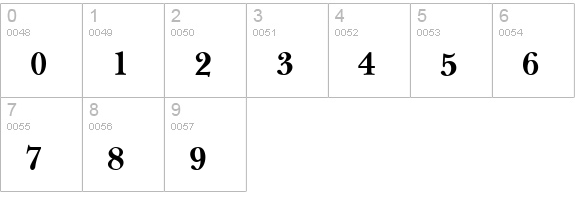
Baskerville SSi Semi Bold Font Details
Baskerville SSi Semi Bold is a strong, high-contrast variant in the Baskerville typeface family \xE2\x80\x94 well suited to headlines, attention-grabbing titles, and strong calls-to-action.
Baskerville SSi Semi Bold font exudes a sense of sophistication and elegance with its clean lines and distinct serifs. This semi bold variant of the classic Baskerville typeface strikes the perfect balance between boldness and readability, making it ideal for a wide range of design projects. What sets Baskerville SSi Semi Bold font apart is its timeless appeal and versatility. Whether used for headlines, body text, or branding materials, this font commands attention and adds a touch of refinement to any design. Its semi bold weight provides a strong presence on the page without overwhelming the overall layout. The best part is that Baskerville SSi Semi Bold font is free to download at FontsMarket.com, giving you easy access to this premium typeface for your creative endeavors. Don't miss out on the opportunity to elevate your designs with the timeless charm of Baskerville SSi Semi Bold font.